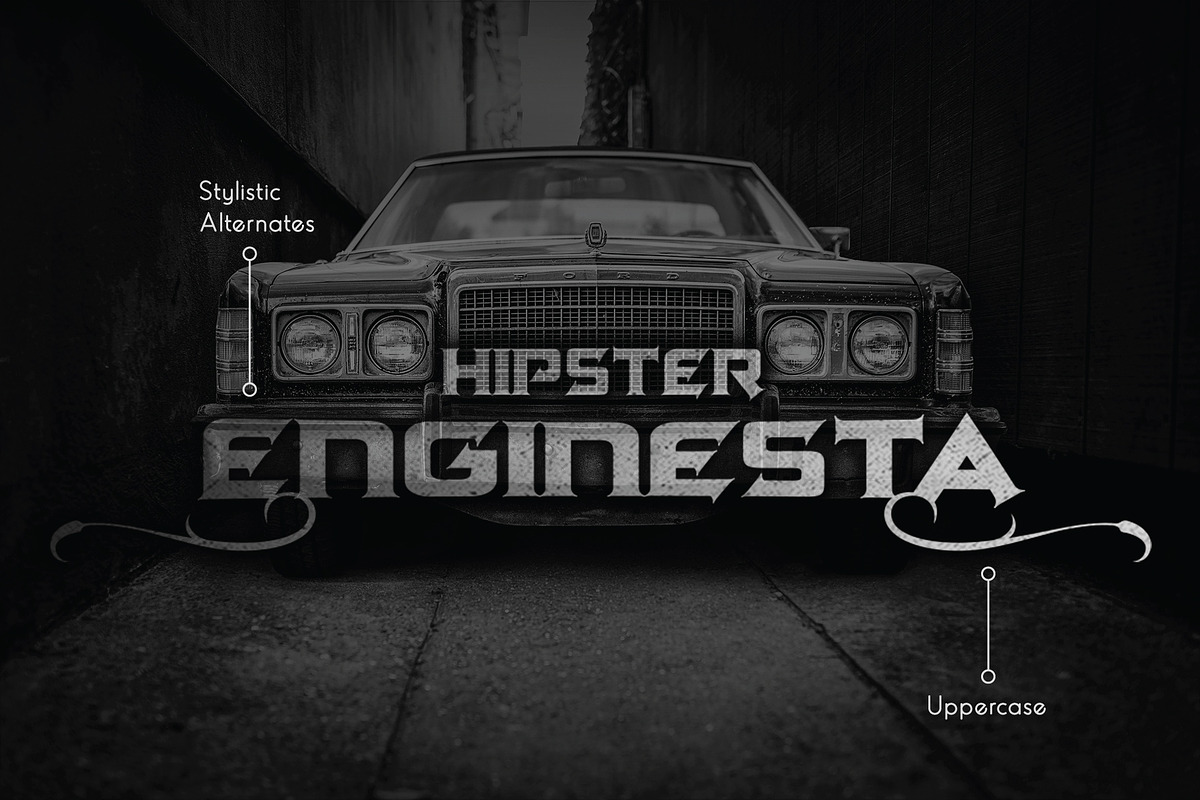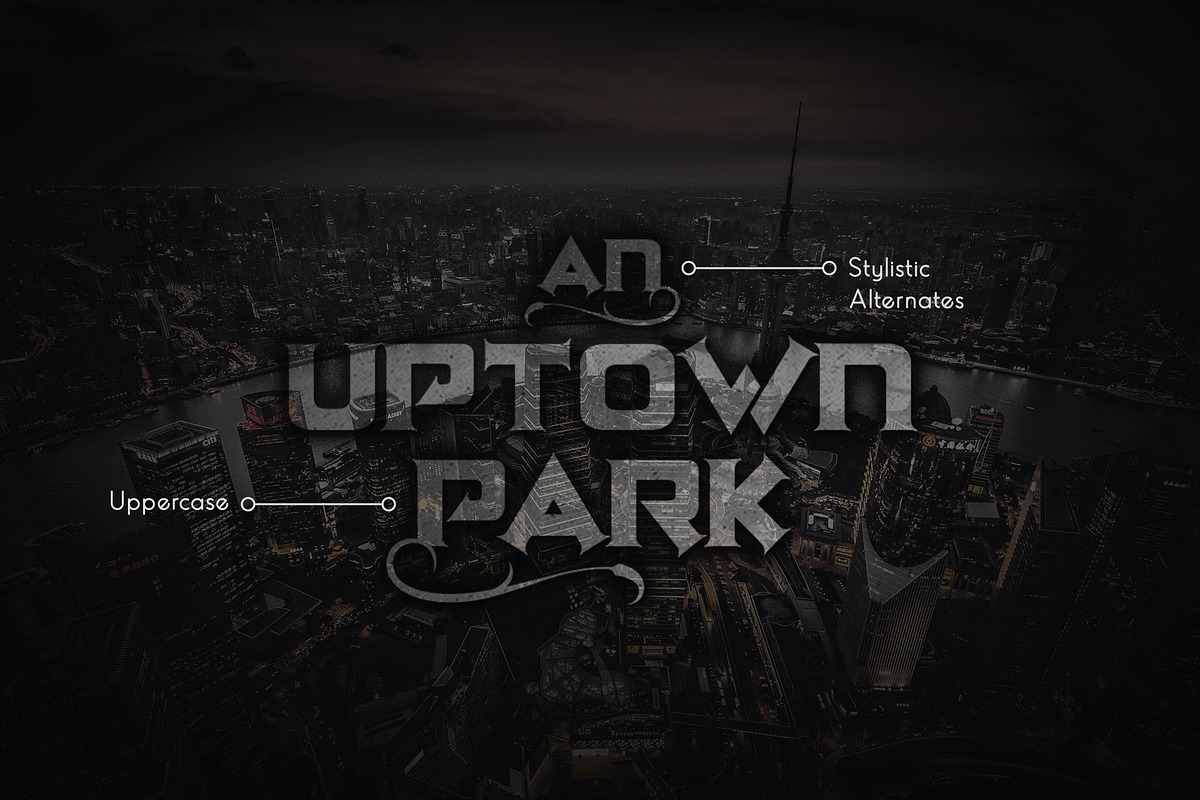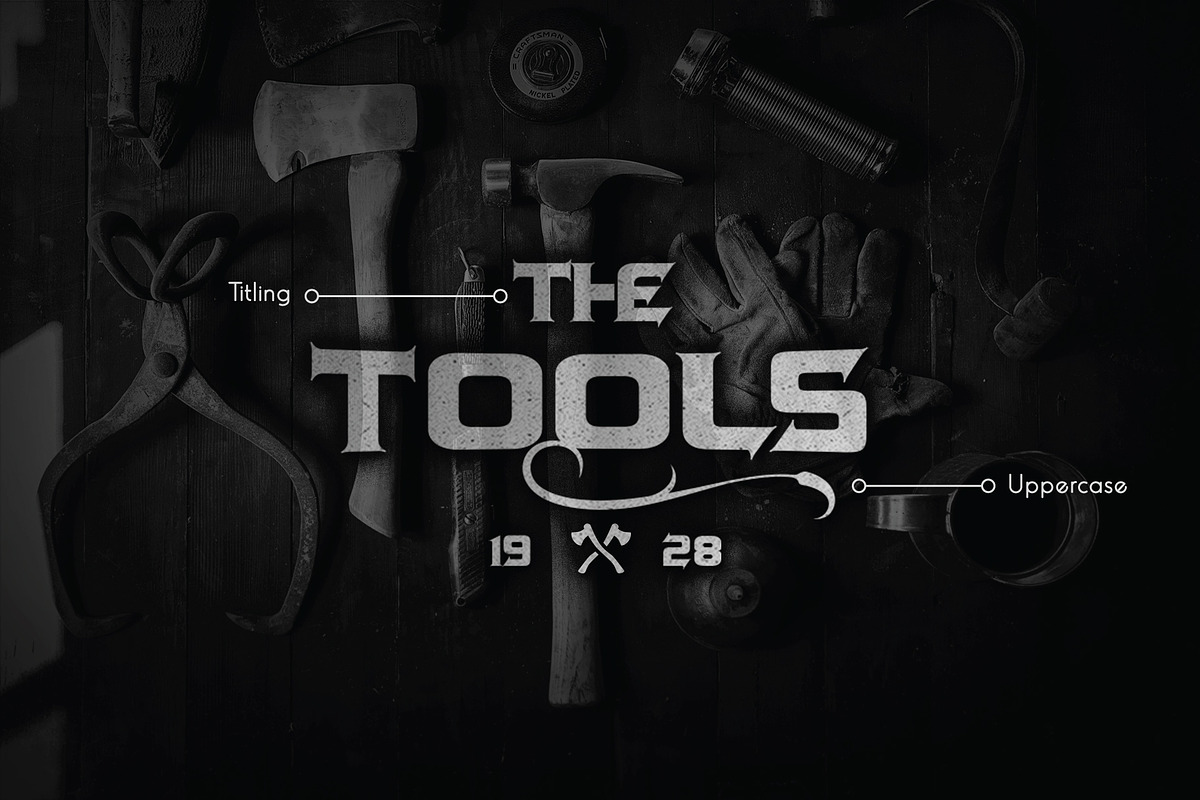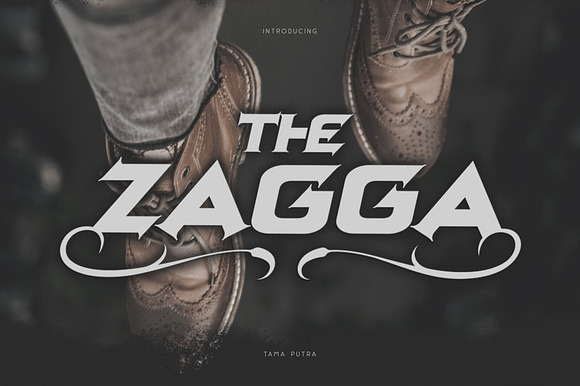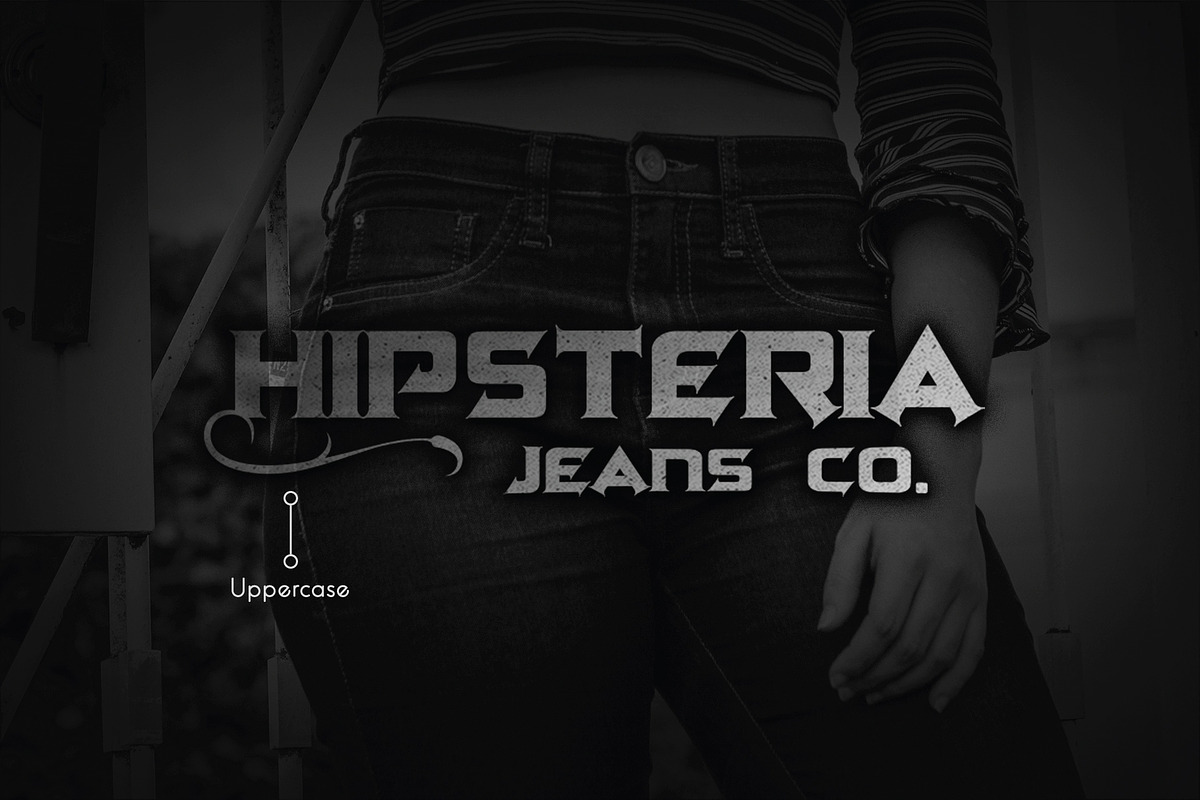
Zagga Font
Zagga is a decorative typeface. It includes multi-lingual and currency support, numerals, and punctuations.
Character Set A-Z (Uppercase & Lowercase)
Accents (Multilingual characters)
This typeface can be put to many uses:
Zagga typeface is suitable font for creating beautiful things and many creative work.
- Character Set A-Z (Uppercase & Lowercase)
- Titling
Why Zagga Font is worth a look
Zagga Font by Vacatype Co. fits naturally into Branding, posters, packaging, typography.